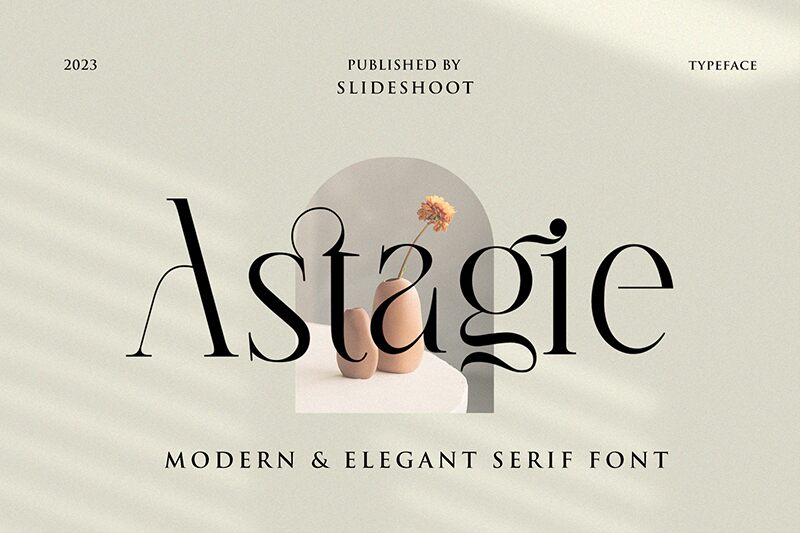
Astagie
Astagie font by Slide Shoot Type is an elegant and sophisticated serif with expressive flourishes and modern appeal. Luxurious and polished, it boasts a supreme high-end aesthetic for an instantly refined project appearance.
Use this free serif font in branding, corporate identity kits, websites, fashion magazines, packaging design for perfumes or cosmetics, beauty mooks (magazine-books hybrid), event invitations, blogging projects, posters/flyers, social media channels including Instagram stories.